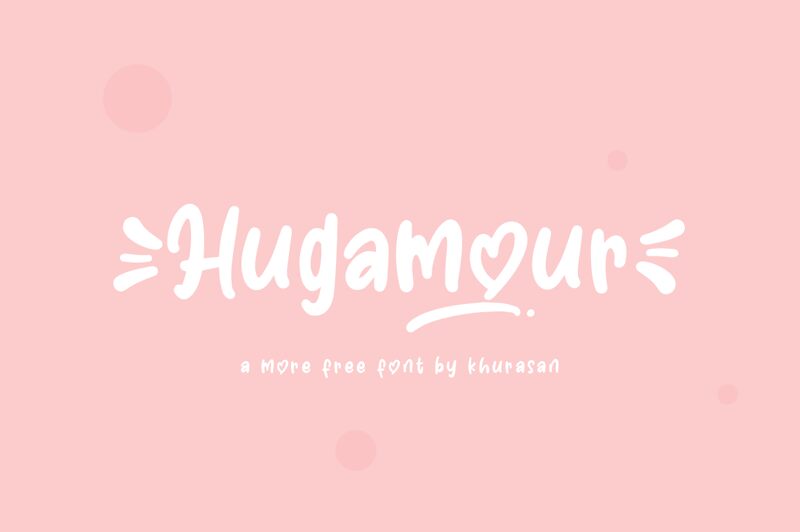
Hugamour
Hugamour by Khurasan is a lovely handwritten script font that is perfect for any project. It's ideal for adding a personal touch to wedding invitations, crafting greeting cards, or designing logos with a romantic flair.